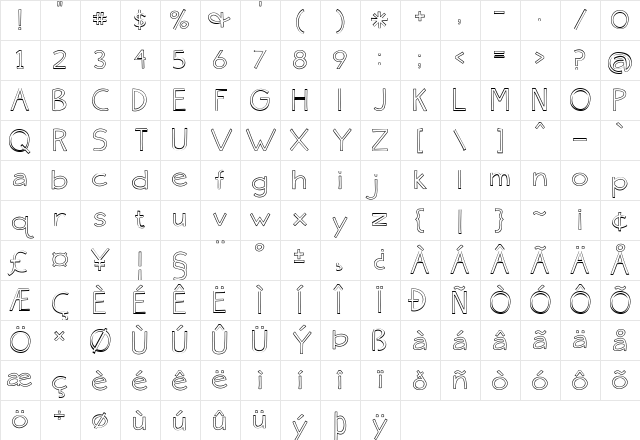
{skinny} jeans Regular Free Font
{skinny} jeans Regular
Foundry: Brittney Murphy
Designer: Brittney Murphy
Design Context for {skinny} jeans
{skinny} jeans is a composed and adaptable typeface that performs quietly and consistently across a wide range of design contexts.